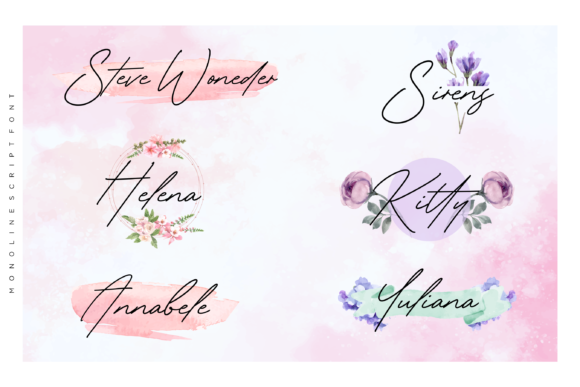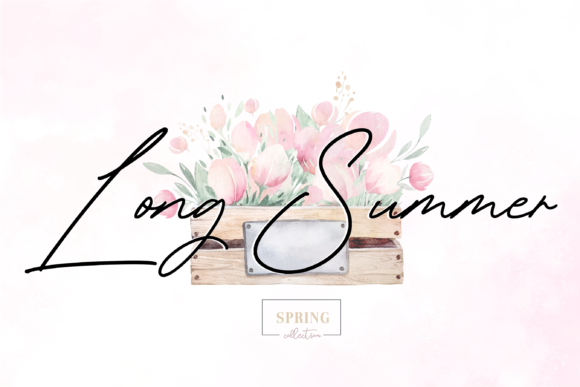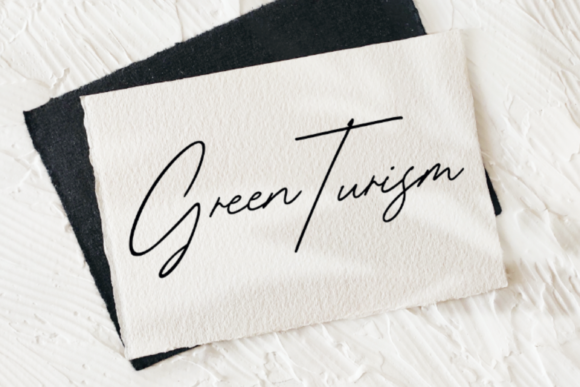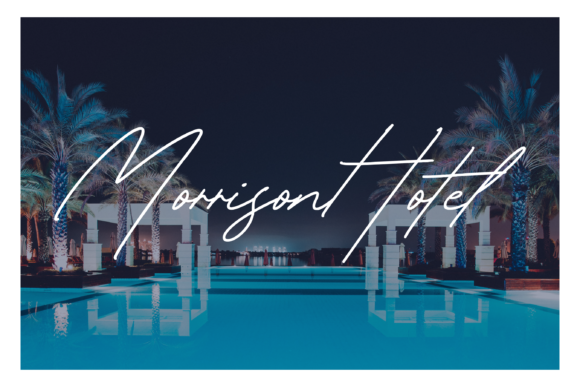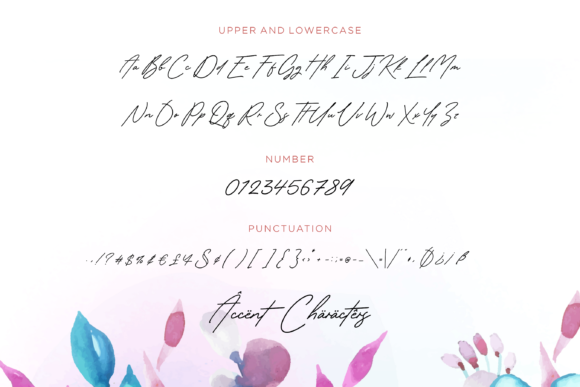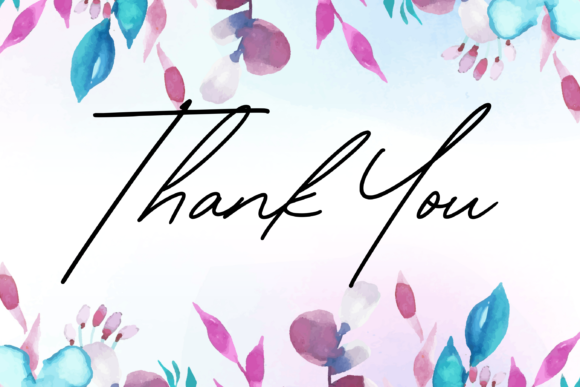
Introduction to Gardenia Summer Font
As a designer, there’s nothing quite like the thrill of discovering a new font that captures the essence of a project. For me, that moment came when I stumbled upon the enchanting Gardenia Summer Font. Its elegant script and classic calligraphy style transported me to a world of sophistication and refinement.
With its varying baseline and smooth lines, this stunning monoline script font is a must-have for any creative project. Whether you’re working on a wedding invitation, a luxury brand’s marketing materials, or a simple yet elegant website, Gardenia Summer Font is the perfect design resource to elevate your work.
What makes this font truly special is its high-quality design and versatility, making it easy to use and customize for any project. Plus, with a transparent background, you can seamlessly integrate it into any design. And the best part? You can download it for free, making it an invaluable addition to any designer’s toolkit.
Key Features of Gardenia Summer Font
- High-quality, elegant design perfect for creative projects and designs.
- Includes a transparent background, allowing for easy customization and integration into various designs.
- Unique characteristics include delicate, hand-painted floral elements and a soft, pastel color palette.
- Perfect for use in a variety of design contexts, including wedding invitations, greeting cards, and branding materials.
Honest Review: Gardenia Summer Font
I recently had the chance to work with the Gardenia Summer Font, and I must say it’s been a game-changer for my creative projects. The font is perfect for adding a touch of elegance and sophistication to any design.
- ✨ High-quality design that’s perfect for any creative project.
- ✨ Beautiful, hand-drawn characters that add a personal touch.
- ✨ Transparent background, making it easy to work with and customize.
- ⚠️ Limited character set, which may be a drawback for designers working on large projects.
- ⚠️ Not ideal for use in small font sizes, as it may become difficult to read.
Overall, I’m really impressed with the Gardenia Summer Font. It’s a high-quality design resource that’s perfect for designers looking to add a touch of elegance to their work. While it may have some limitations, I believe it’s definitely worth considering for your next creative project.
Common Use Cases for Gardenia Summer Font
The Gardenia Summer Font is ideal for a variety of creative projects, including wedding invitations, event branding, and product packaging. Its high-quality design and transparent background make it a versatile design resource for any project.